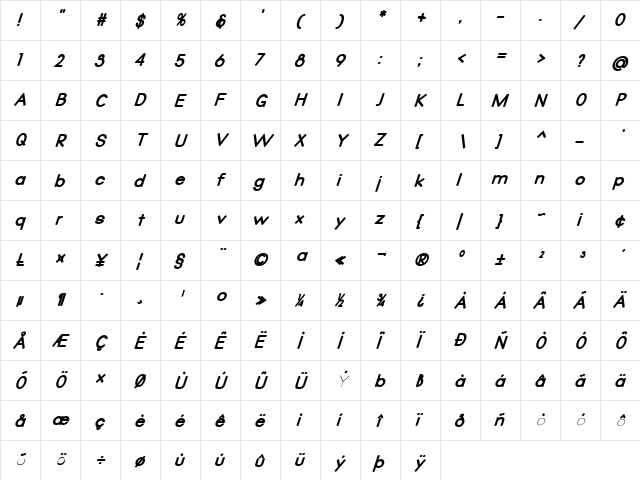
Qualio black italic Regular
Design Context for Qualio black italic Typeface
Qualio black italic is a composed and adaptable typeface that performs quietly and consistently across a wide range of design contexts. The dynamic lean of this cut emphasises speed and emphasis in any layout.
Pro Tip: Try Qualio black italic for annotation and caption copy alongside an upright companion — the contrast in angle creates a dynamic but ordered typographic system.